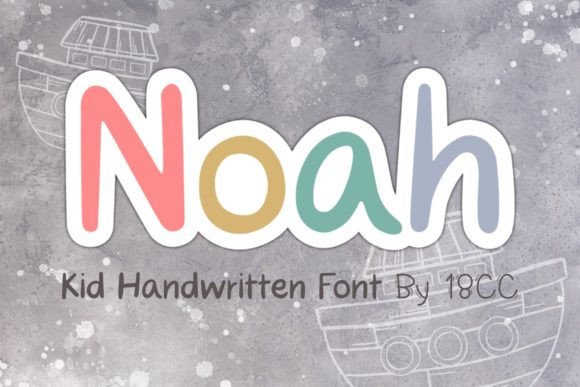
Welcome to the realm of creative expression, where words dance upon the canvas of your imagination, guided by the strokes of Noah Font, a testament to the allure of simplicity.
Step into a world where logos come alive, where brands leave an indelible mark, and where social media posts captivate hearts and minds. Noah Font, a script font family born from the artistry of 18CC FONTS, is your gateway to visual storytelling.
Experience the warmth of a casual, friendly handwritten font that exudes approachability and charm. Its clean lines and playful quirks bring a touch of whimsy to your designs, inviting viewers to engage and connect.
With Noah Font as your creative ally, you'll effortlessly craft logos that resonate, leaving a lasting impression in the minds of your audience. Build a brand identity that speaks volumes, captivating customers with a visual language that exudes authenticity and warmth.
Unleash your creativity on social media platforms, transforming your posts into captivating works of art. Engage followers with visually stunning content that sparks conversations and ignites imaginations. Noah Font's versatility shines through, adapting seamlessly to various platforms and formats, ensuring your message always stands out.
Beyond the digital realm, Noah Font brings a touch of magic to your crafty DIY projects. Personalize cards, invitations, and home décor with a handwritten flair that adds a personal touch to every creation. Let your creativity flow freely as you turn ordinary objects into extraordinary expressions of your unique style.
Noah Font is more than just a font; it's a gateway to artistic liberation. Its simplicity opens doors to endless possibilities, empowering you to create designs that captivate, inspire, and leave an enduring legacy. Embrace the beauty of simplicity and let Noah Font guide you on your creative journey.